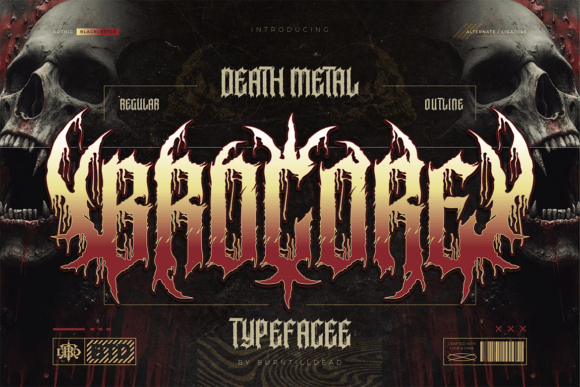
Unleash Your Dark Side: A Deep Dive into Brocore Font
I’ll never forget the struggle of working on a death metal band’s logo project, desperately searching for a font that embodied the aggressive, bold, and unapologetic vibe of the music. The font had to be brutal, yet elegant in its own dark way. That’s when I stumbled upon Brocore Font, a brutal death metal blackletter typeface that instantly resonated with the project’s aesthetic. In this article, I’ll share my journey with Brocore, its features, and how to make the most of this powerful font.
What Makes Brocore Stand Out?
Brocore is not just another font; it’s an experience. Inspired by underground metal logos, gothic lettering, and dark horror aesthetics, this font is the epitome of bold and intense typography. Each letter is crafted with dramatic spikes, dripping edges, and a strong gothic structure, making it perfect for heavy branding and high-impact designs.
Key Features of Brocore Font
• A-Z set (Uppercase & Lowercase)
• Numbers
• Punctuation
• Alternates
• Ligatures
• Multilingual support
Brocore comes in two styles: Regular and Outline, providing flexibility for various design applications. Whether you’re working on death metal & black metal band logos, album covers, music posters, or even streetwear & merch design, Brocore has got you covered.
What I Love About Brocore ✨
• ✅ Extremely versatile for dark and intense projects
• ✅ High-quality, sharp, and clear at various sizes
• ✅ Easy to pair with other fonts for a unique look
• ✅ The inclusion of alternates and ligatures offers great creative freedom
While Brocore is a powerful font, there are a few things to keep in mind:
• 🤔 It might be too aggressive for projects requiring a more subtle approach.
• ⚠️ Some users might find the learning curve steep due to the extensive features.
The Story Behind Brocore
Brocore was born out of a passion for dark, intense aesthetics and a desire to create a font that could embody the spirit of extreme music and visuals. The designer, inspired by the raw energy of underground metal and gothic art, aimed to craft a typeface that would be both brutal and beautiful.
Font Name Brocore Font
Author Burntilldead
Q: What type of projects is Brocore best suited for?
A: Brocore is ideal for projects that need a dark, intense, and rebellious vibe, such as death metal & black metal band logos, album covers, music posters, and more.
Q: Does Brocore support multilingual characters?
A: Yes, Brocore supports multilingual characters, making it versatile for various languages and regions.